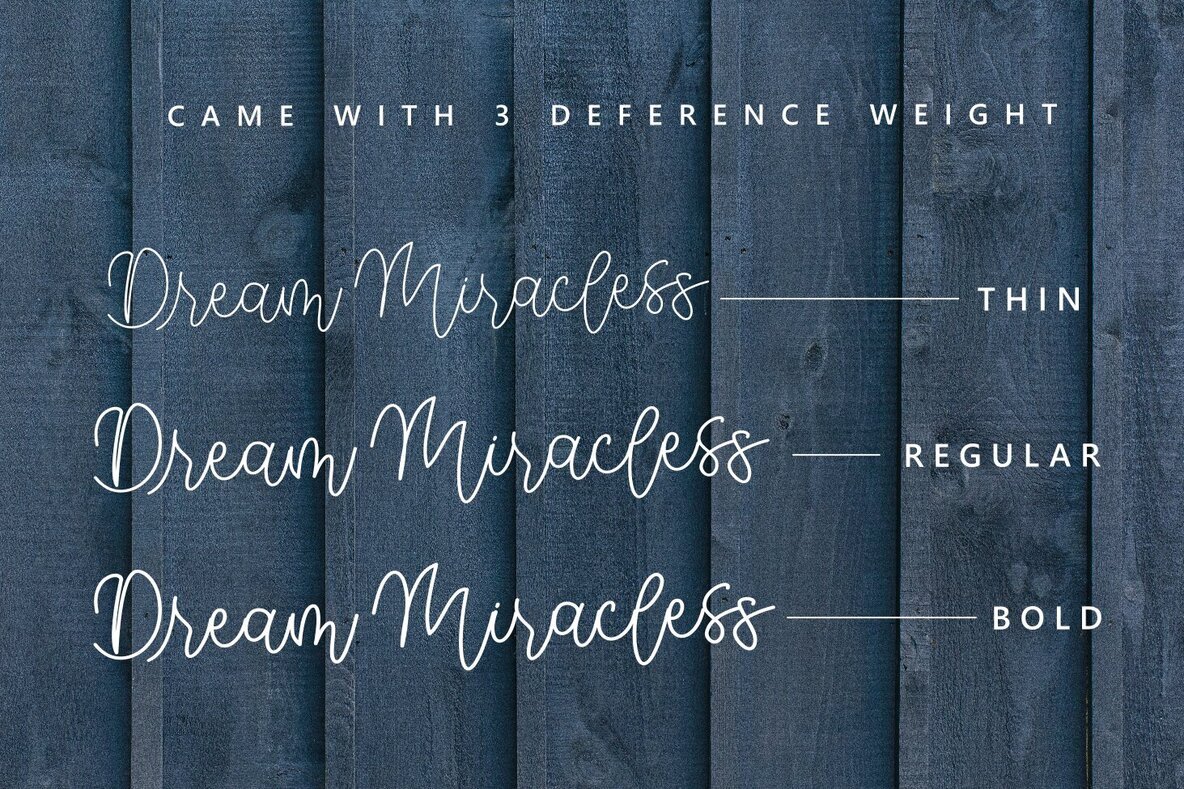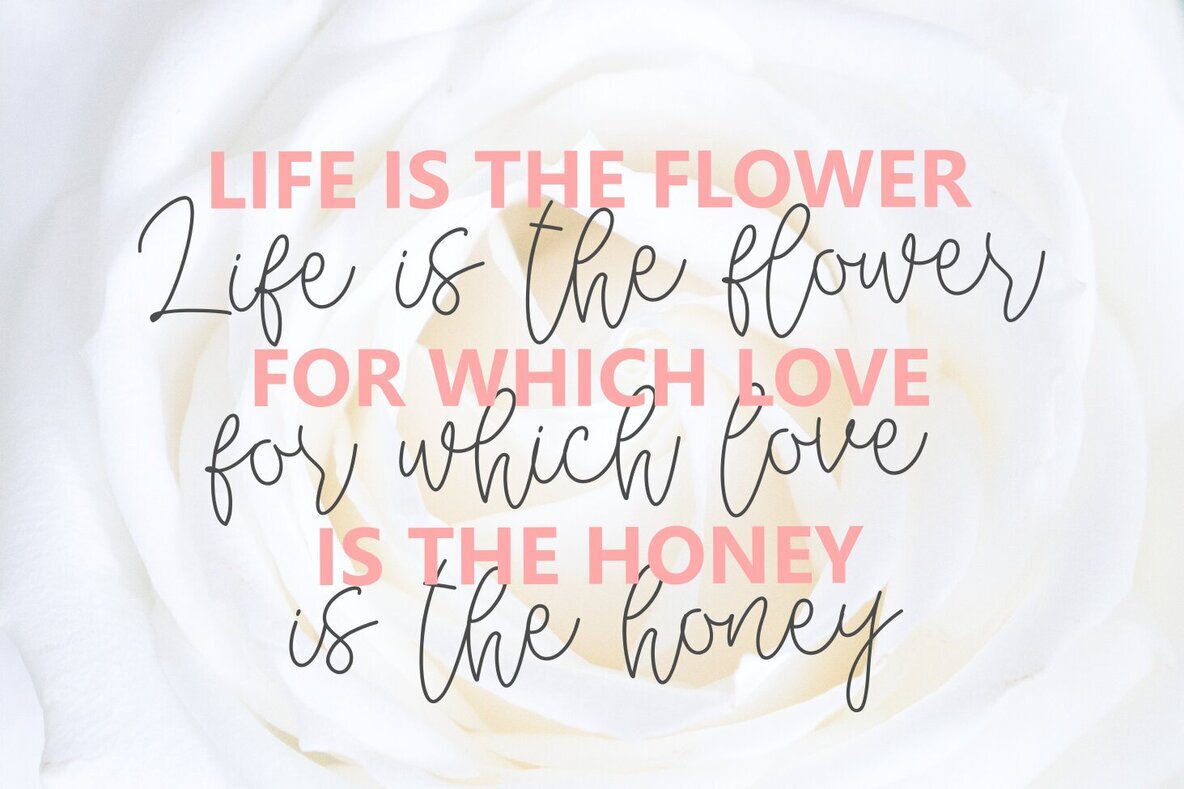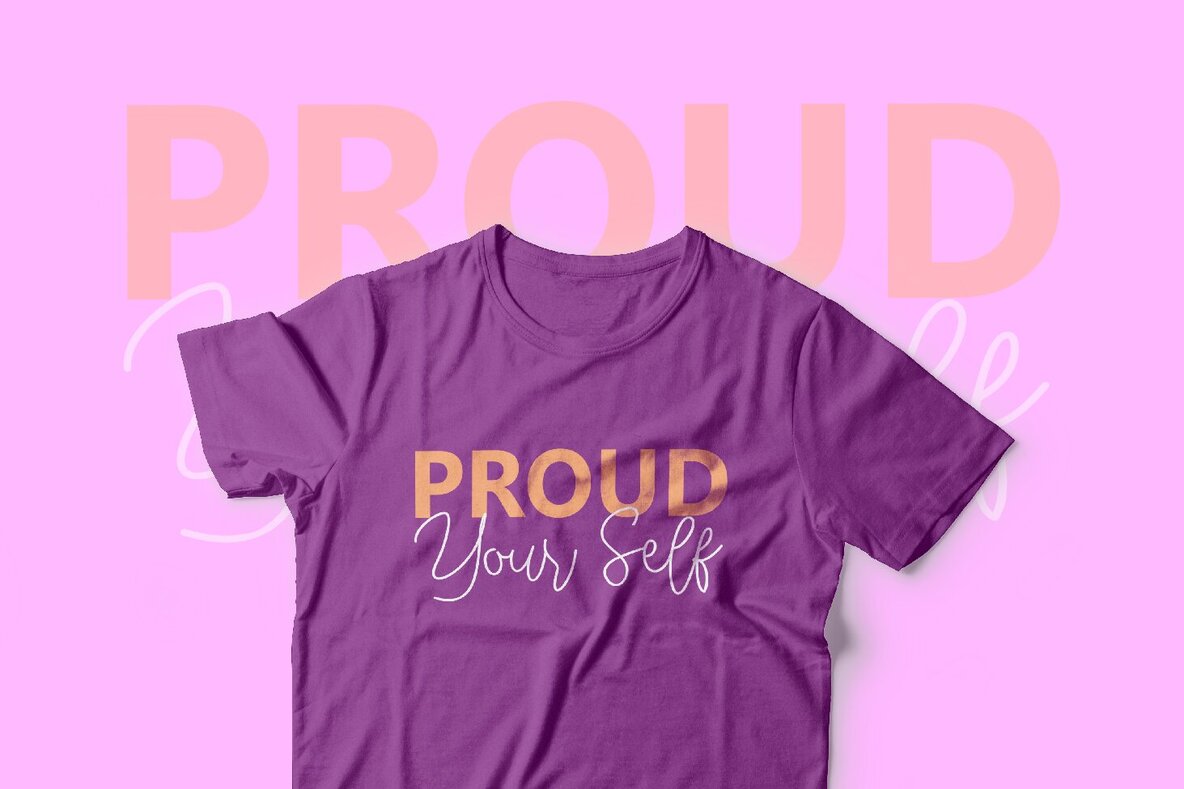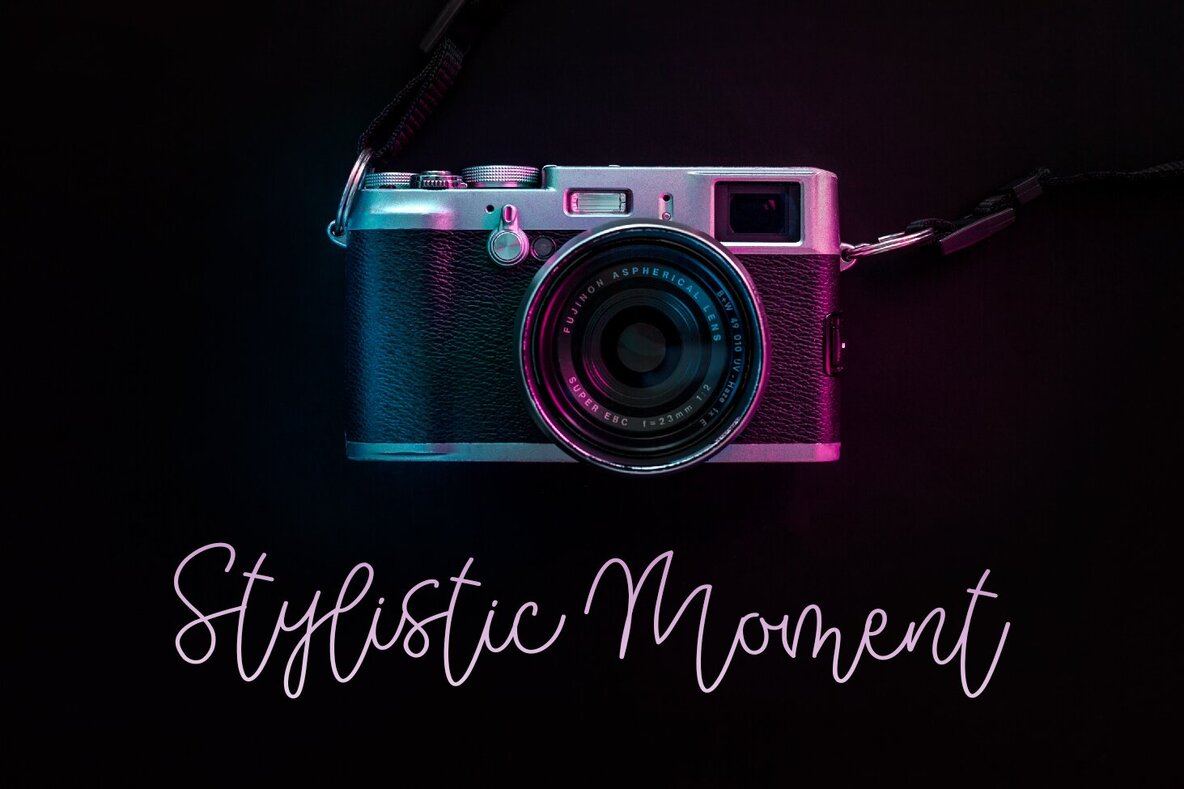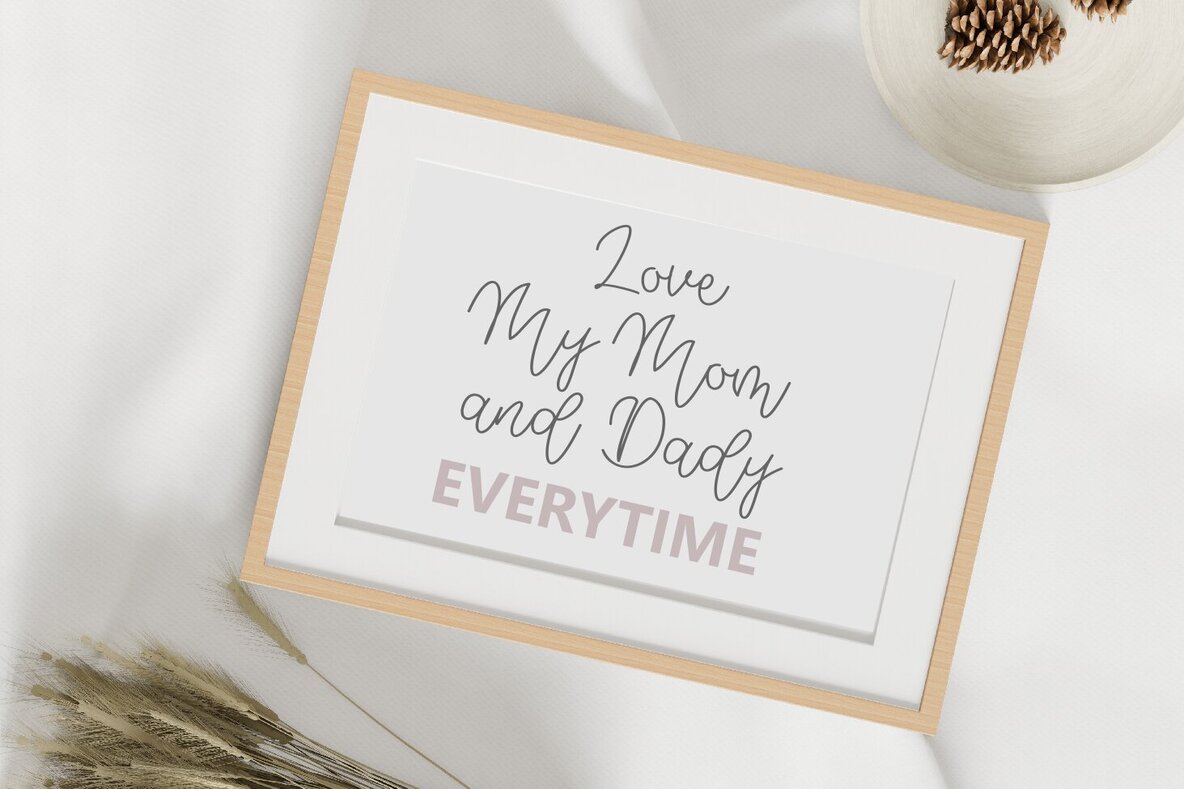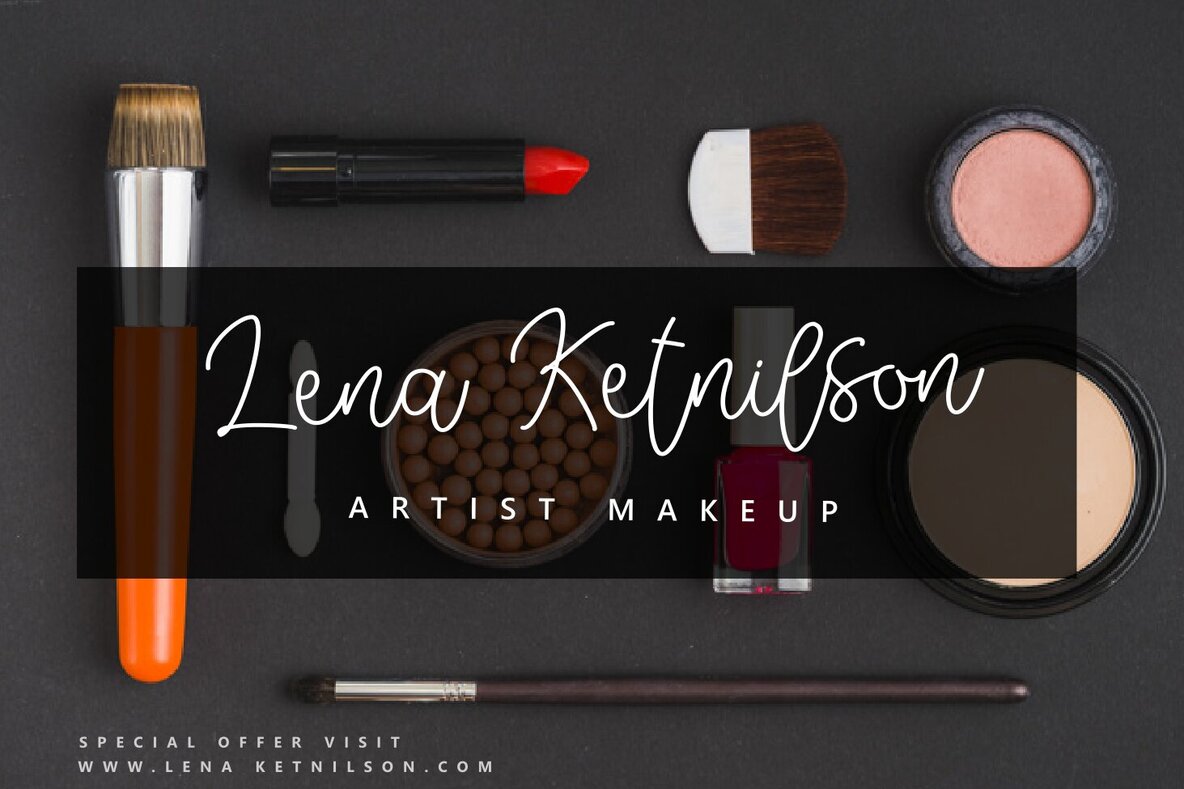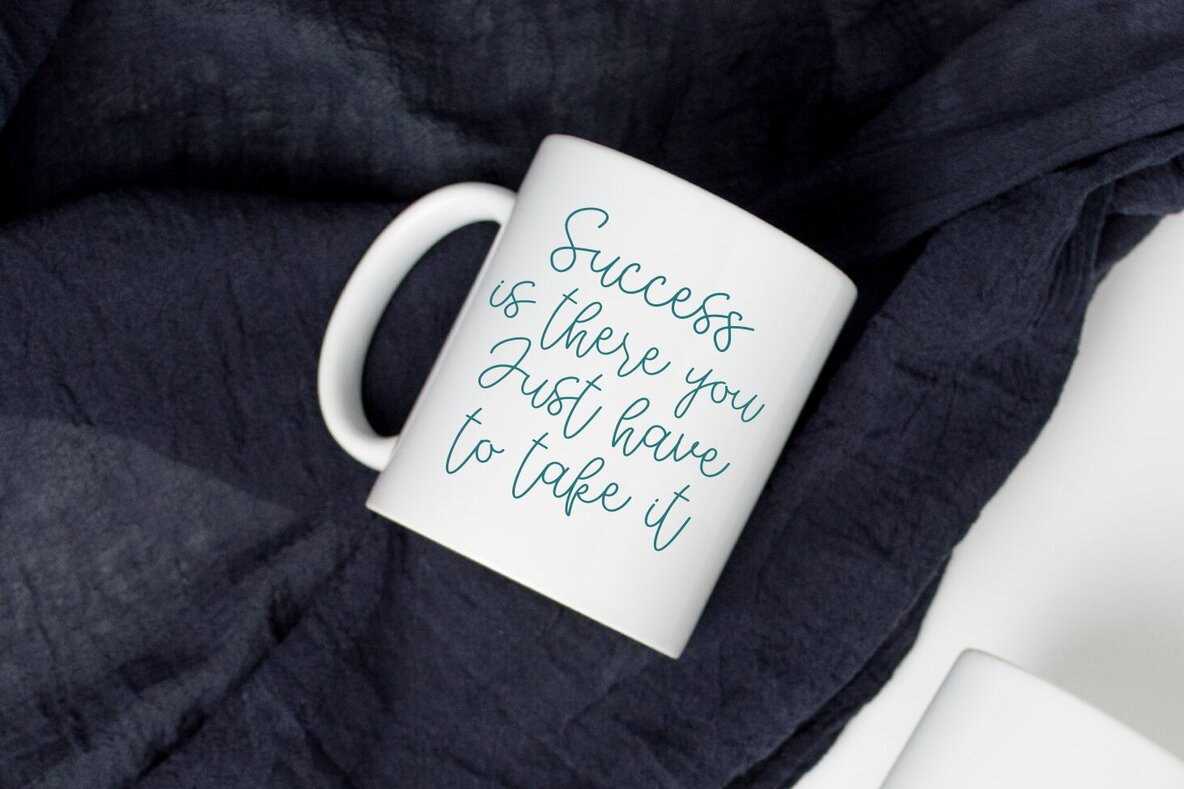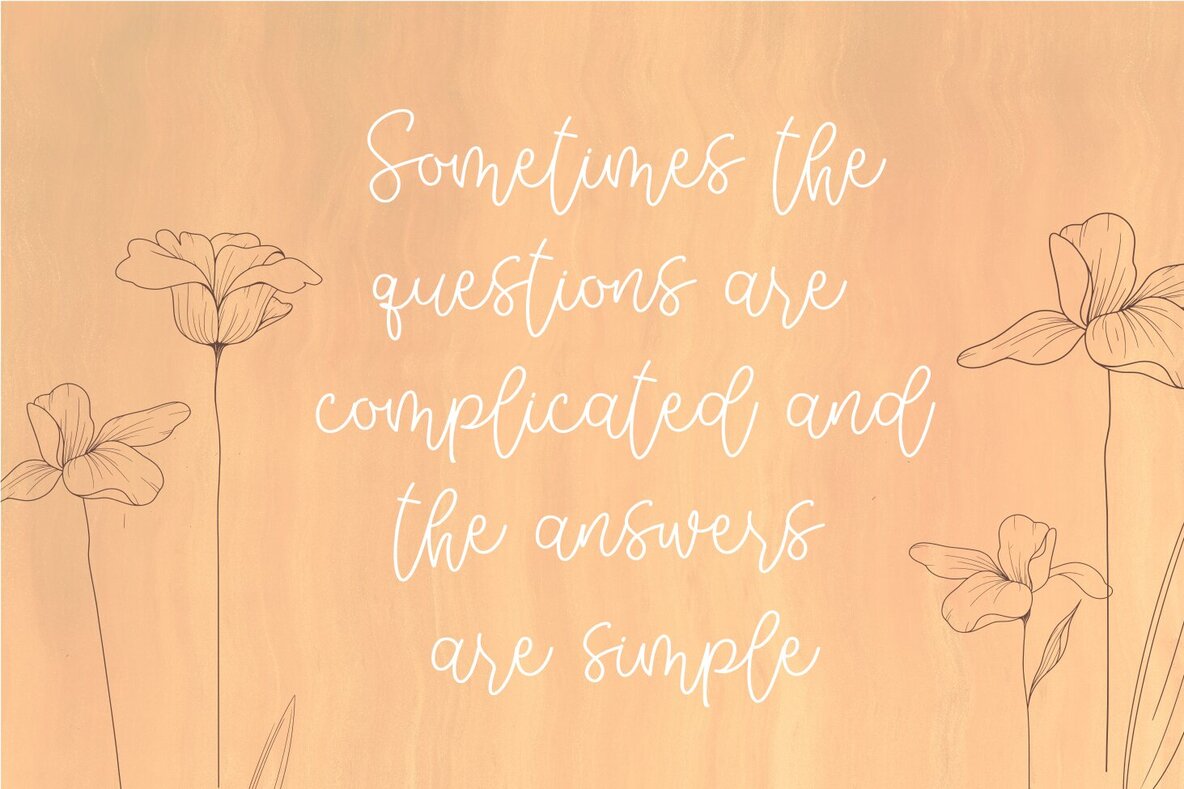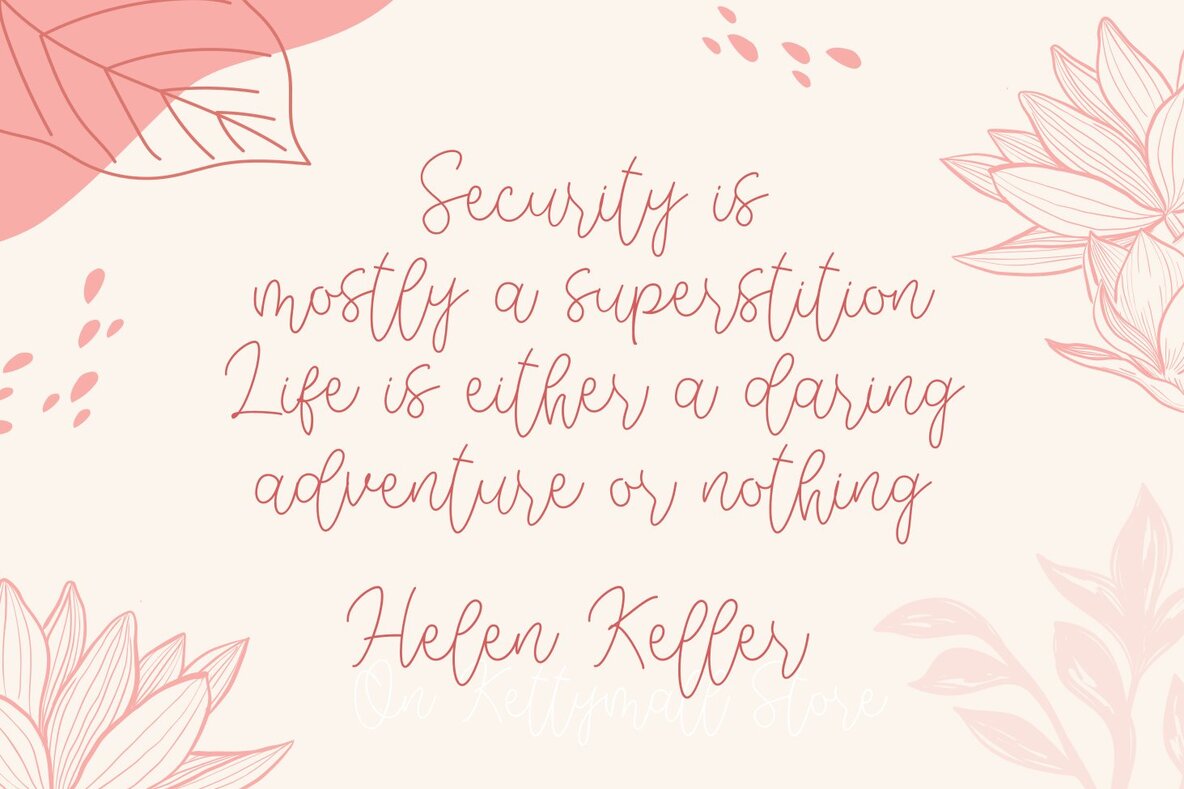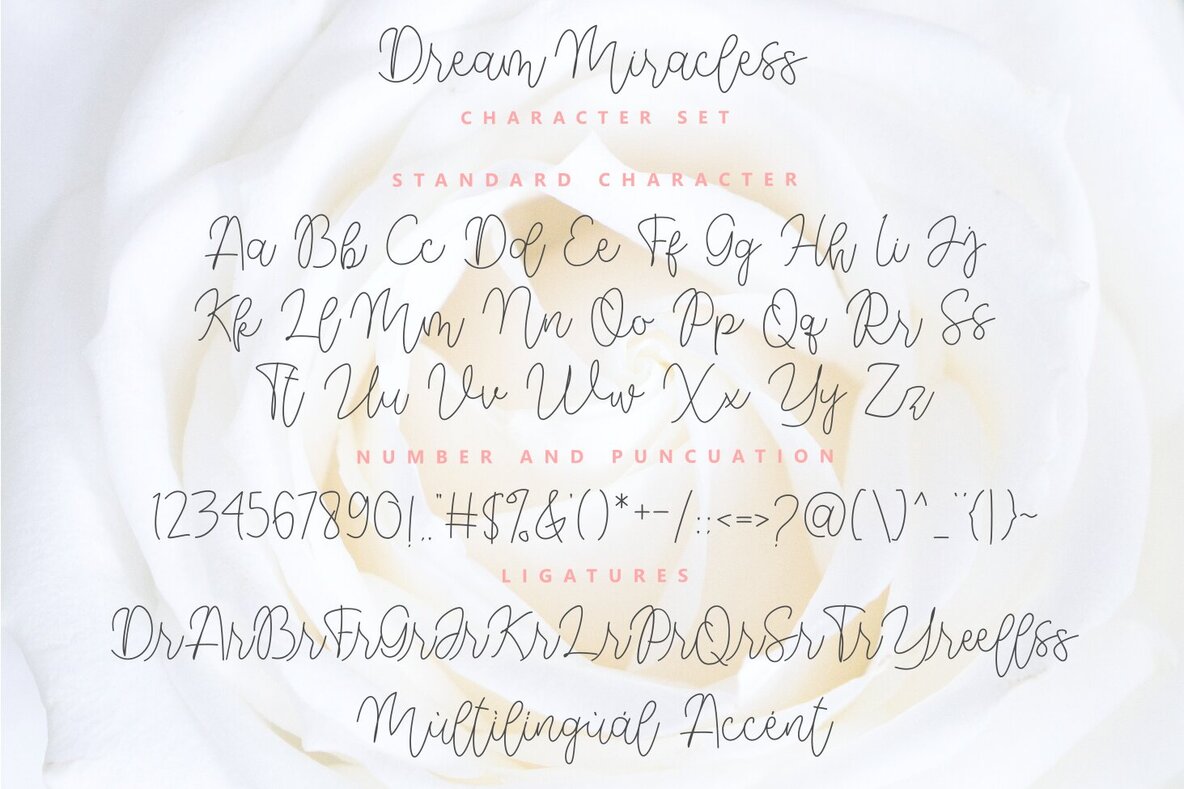
Dream Miracless Font
Dream Miracless offers a unique and elegant touch with its monoline lettering style. Available in three weights—Thin, Regular, and Bold—this font brings versatility to any design project. Perfect for a range of uses, Dream Miracless shines in: Note: Images and vectors shown in previews are solely for illustrative purposes and are not included in the product.Dream Miracless: Versatile Monoline Lettering Font